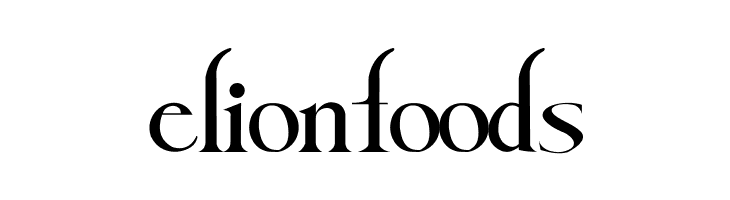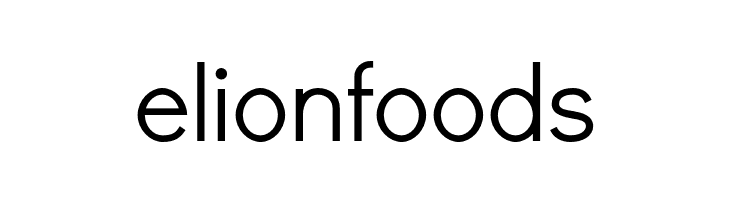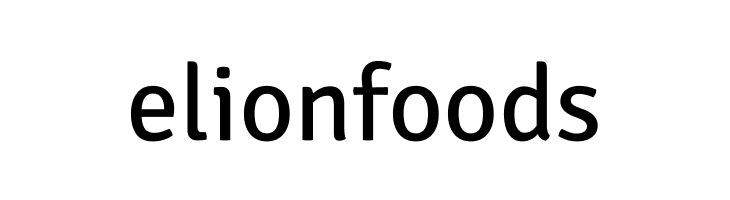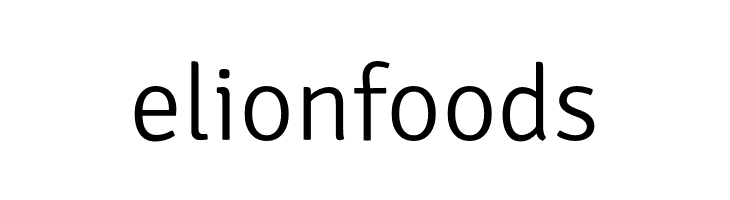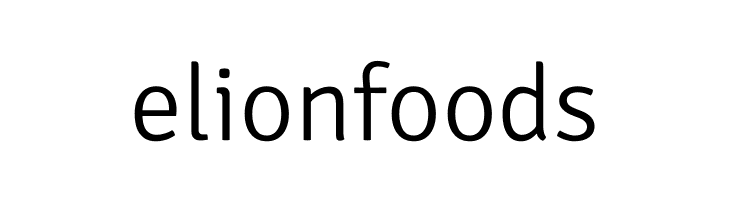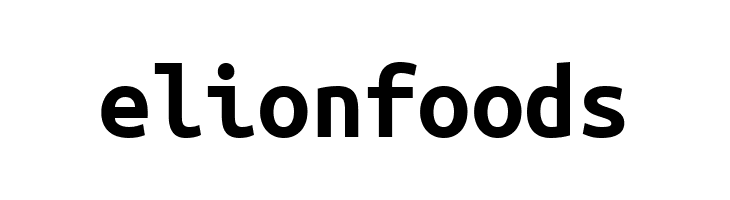
A decorative serif font with elegant flourishes and a dramatic style.
A bold, impactful font with thick strokes and a modern, commanding presence.
A whimsical and decorative font with intricate swirls and flourishes.
). ) A clean, modern sans-serif font with excellent readability and geometric uniformity.
A modern, clean sans-serif font with excellent readability.
A modern, light sans-serif font with excellent legibility and minimal contrast.
A modern, light sans-serif font with excellent readability and a friendly appearance.
A clean, modern sans-serif font with uniform stroke width and geometric shapes.
A bold, modern sans-serif font with clean lines and Thai script support.
A bold, monospaced font ideal for coding and technical documents.